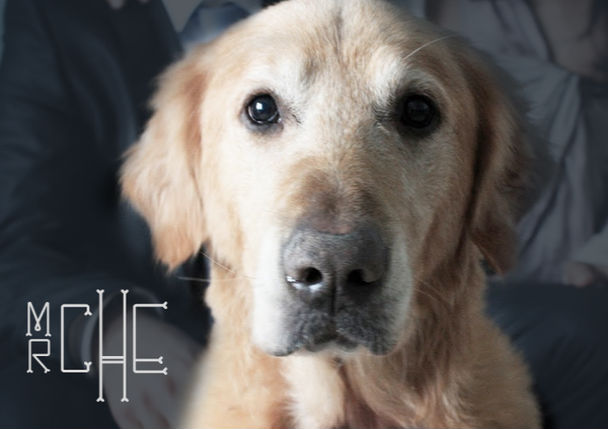
The 75 Best Free Fonts for 2024
Typography is an important aspect of web and graphic design because good use of the typeface makes your design superior. Although finding the right font can often be a challenge.
If you’re looking for a high-quality typeface to spice up design projects, this post should be an excellent resource for you. We have rinsed and analyzed to present you with an elegant and miscellaneous selection of free fonts which can be seamlessly integrated into any design, including sans-serif, display, serif and scripts.
Here we have collected the new best free fonts and found in a variety of styles for you to use in your design. The font library can be used on your web projects; most of these fonts allow for commercial use. However, please be sure to check the terms.
1. Look Up
Look Up free font is a playful type with a home-made feel, and it has little arrows at the edge of each letter. The font allows you to create a lot of great things such as magazines, posters, printings, t-shirts etc.
2. Campton
Campton is a simple sans serif with a geometric skeleton. It tries to find its niche in the field of anonymous typefaces by combining simplicity with a subtle friendliness. The font is perfectly suited for graphic design application ranging from editorial and corporate design via web and interaction design through to product design.
3. Baron
Baron is a free uppercase display typeface inspired by the classic sans serif font families because it’s many alternative options and weights. It is perfectly suited for posters, logotypes and headlines, free for both personal and commercial use.